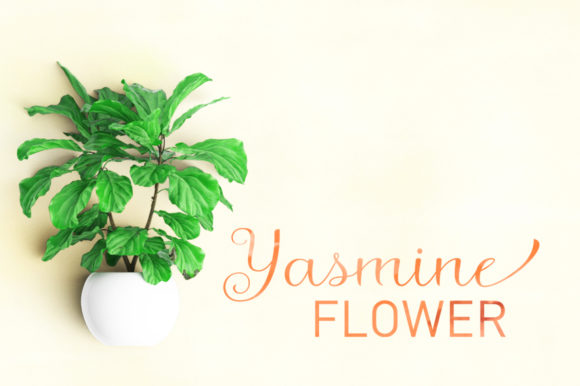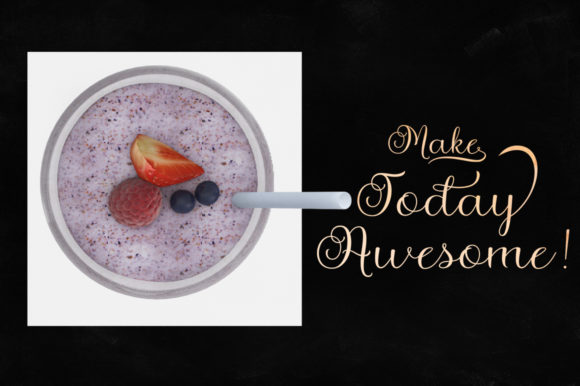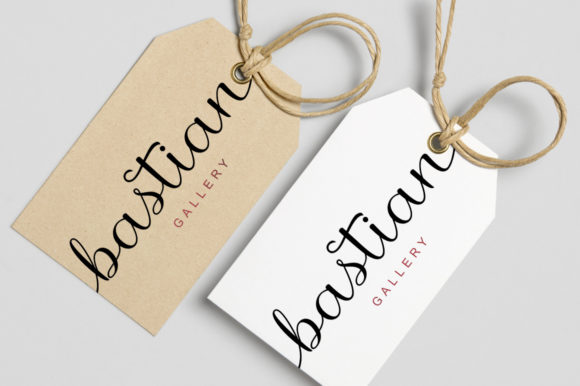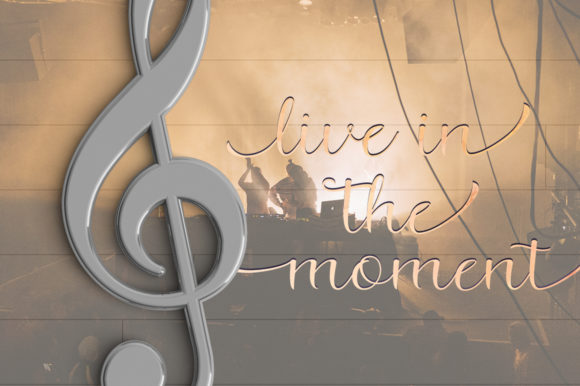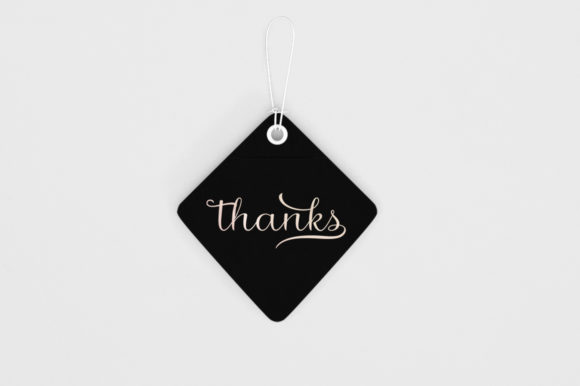
Unleash Your Creativity with the Agustin Script Font
There’s nothing quite like the thrill of seeing your design ideas come to life. You’ve spent hours brainstorming, sketching, and refining your concept, and finally, it’s time to bring it to the world. But what if your font choice is holding you back? A beautiful, modern handwritten script can make all the difference in elevating your design to the next level.
Enter the Agustin Script Font, a versatile and easy-to-use typeface that’s perfect for branding designs. With its great readability and stylish flair, this font is a must-have for any designer looking to add a personal touch to their work. Whether you’re creating a logo, business card, or social media campaign, the Agustin Script Font is sure to impress.
Agustin Script Font Key Features
- Unique Characteristics: Agustin Script Font features a beautiful, handwritten script design with elegant connections between letters, giving it a unique and sophisticated look.
- Font Style: Agustin Script Font is available in a single font style, making it easy to use and apply across various design applications.
Agustin Script Font Review
Overall, I think the Agustin Script Font is a beautiful and elegant choice for any design project. It works particularly well for ✨ branding and advertising materials ✨ where a touch of sophistication is needed. The font’s flowing lines and subtle flair make it perfect for creating a sense of luxury and high-end quality.
One of the standout features of the Agustin Script Font is its ✨ versatility ✨. It can be used for a wide range of applications, from website headers to business cards, and even for creating beautiful hand-written style typography. The font’s open-source license also makes it easily accessible to designers and non-designers alike.
- ⚠️ May not be suitable for small text sizes due to its script nature
- ⚠️ Limited character set and language support
- ⚠️ May require additional font styles to create a complete typography set
While the Agustin Script Font has some limitations, I think its strengths far outweigh its weaknesses. With a little creativity and planning, designers can create stunning and effective designs that showcase the font’s unique character.
Overall, I would highly recommend the Agustin Script Font to designers looking for a beautiful and elegant script font. With its versatility, sophistication, and wide range of applications, it’s a great choice for any design project.
Agustin Script Font is ideal for creating beautiful, handwritten-style typography. Some common use cases include:
– Handwritten-style quotes and captions
– Unique and creative titles and headings
– Personalized gifts and cards